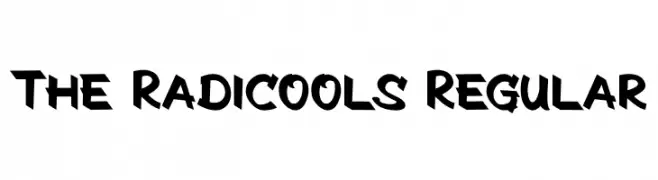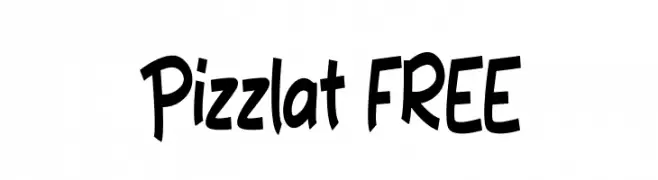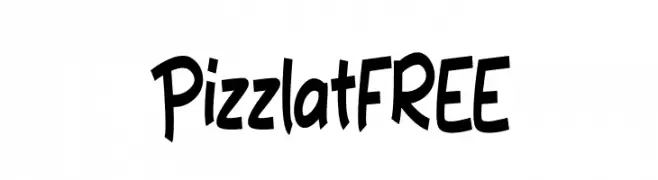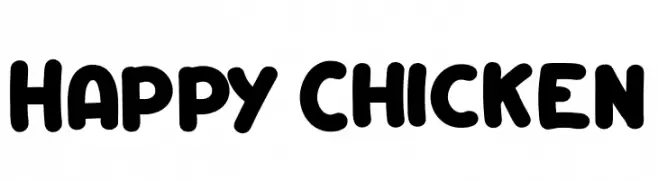
( Fonts by Onne Hermawan )
A bold, italic font with a dynamic and energetic style.
( Fonts by Onne Hermawan )
A bold, playful font with sharp angles and dynamic curves.
( Fonts by Letterena Studios )
A bold, playful handwritten font with thick, rounded strokes.
( Fonts by Letterena Studios )
A bold, handwritten-style font with an italic slant.
( Fonts by Onne Hermawan )
A bold, playful font with dynamic and quirky letterforms.
( Fonts by Repi Hilmana )
A playful, bold font with rounded edges and consistent width.
( Fonts by Prioritype )
A playful and whimsical font with bold, rounded letterforms.
( Fonts by Vunira Design )
A playful, bold font with a hand-drawn, dynamic style.
( Fonts by Vunira Design )
A bold, playful font with rounded, energetic characters.
( Fonts by Letterena Studios )
A playful, bold font with rounded, thick strokes and a whimsical style.